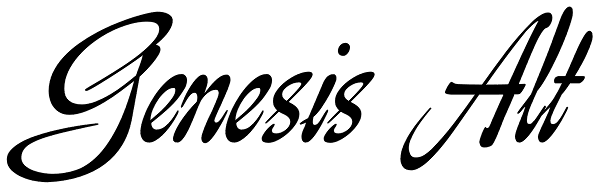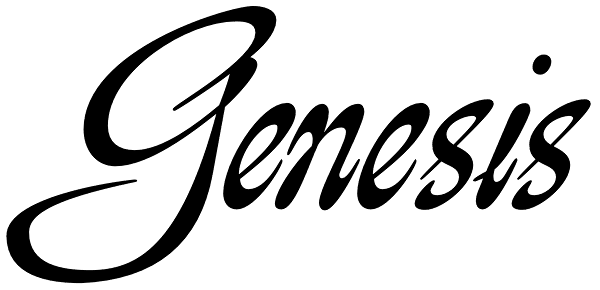
Genesis
Genesis is a digitization and expansion of a Frank Riley metal typeface called Grayda, originally published to much applause by ATF in 1939. The concept for this disconnected script is quite novel and original among cursives and calligraphic fonts...
Genesis Alt
Genesis